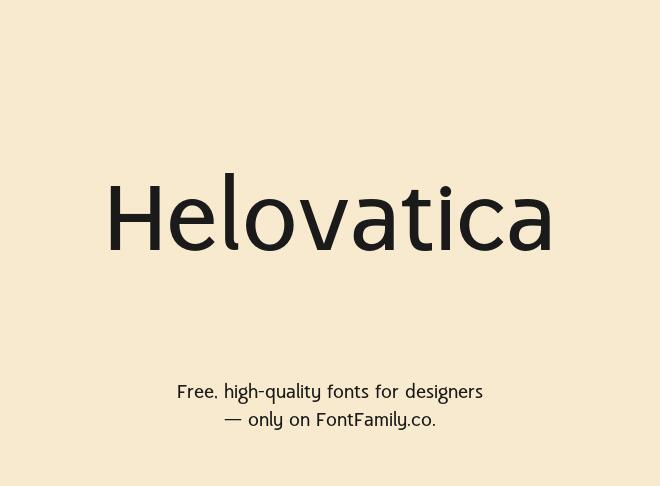
Helovatica Font
Helovatica Font is a timeless, clean, and versatile font designed by Max Miedinger and Eduard Hoffmann. Its modern, geometric design and minimal aesthetic make it a classic choice for designers. This sans serif font is characterized by its neutral look and great clarity, making it perfect for both print and digital designs. Its simplicity and clean lines make it easily readable, even at small sizes, thus it's ideal for body text in books, web pages, and documents. Compared to other fonts, Helovatica Font stands out with its balanced, unadorned style, and it's a great alternative to fonts like Arial or Times New Roman. Its versatility allows it to be used in a variety of design contexts, from corporate branding to user interface design, making it a must-have in every designer's toolkit.